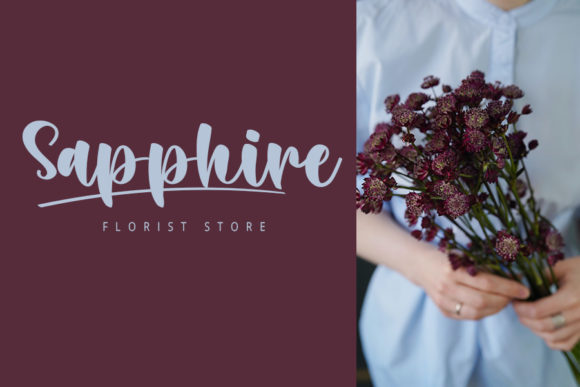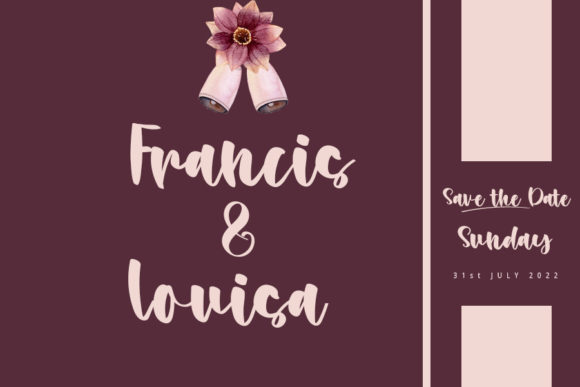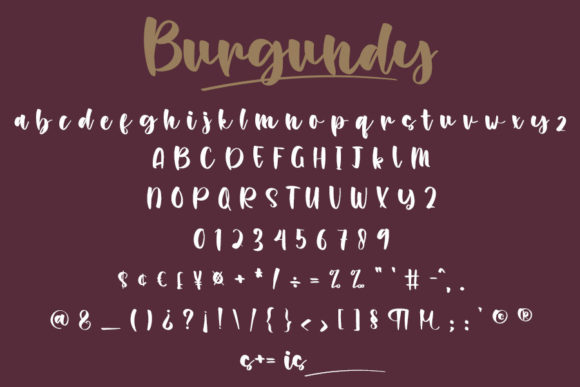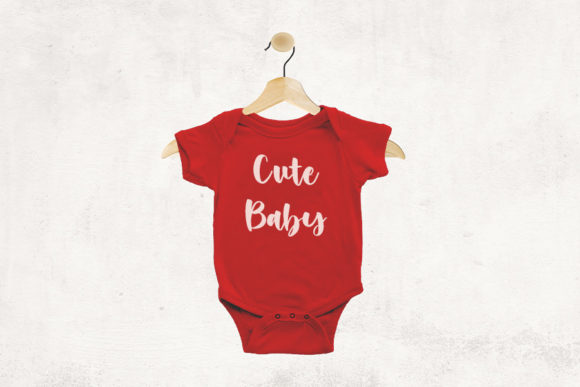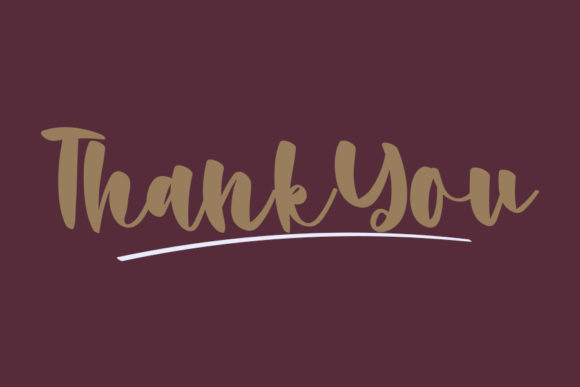
The Elegance of Burgundy Font: A Designer’s Delight
I still remember the time I was working on a wedding invitation project, and my client asked for a font that exuded elegance and sophistication. I scoured the internet, tried out countless fonts, but nothing seemed to fit the bill. That was until I stumbled upon the Burgundy font. Its refined script and modern look instantly caught my attention, and I knew I had found the perfect fit. In this article, I’ll share my experience with the Burgundy font, its features, and how to make the most of it in your designs.
An Honest Review of Burgundy Font
The Burgundy font has won my heart with its numerous strengths. Here’s what I love about it:
• ✨ Elegant and refined script: The Burgundy font boasts a beautiful, flowing script that adds a touch of sophistication to any design.
• ✅ Modern look: Its modern aesthetic makes it perfect for designs that require a fresh and contemporary feel.
• ✨ Versatile: The Burgundy font can be used for a wide range of projects, including logos, branding, invitations, stationery, wedding designs, social media posts, and more.
While the Burgundy font is exceptional, it’s not without its quirks. Here are a few things to keep in mind:
• 🤔 Limited availability of certain characters: Some users have reported that certain characters, such as ligatures, are limited or difficult to access.
• ⚠️ Requires OpenType features support: To take full advantage of the Burgundy font’s features, you’ll need to use software that supports OpenType features.
The Backstory of Burgundy Font
The Burgundy font was designed with the intention of creating a refined and elegant script font that would meet the needs of designers looking for a modern and sophisticated aesthetic. The designer aimed to create a font that would be versatile and easy to use, with a wide range of applications.
Font Name Burgundy Font
What is the Burgundy font best suited for? The Burgundy font is best suited for designs that require an elegant and refined script, such as logos, branding, invitations, stationery, and wedding designs.
Is the Burgundy font suitable for body text? While the Burgundy font is beautiful, it’s not ideal for body text due to its script nature. It’s best used for headings and titles.
Does the Burgundy font support OpenType features? Yes, the Burgundy font supports OpenType features, including stylistic alternates, ligatures, and more.